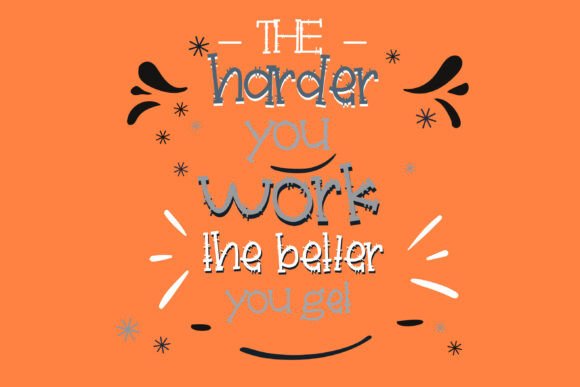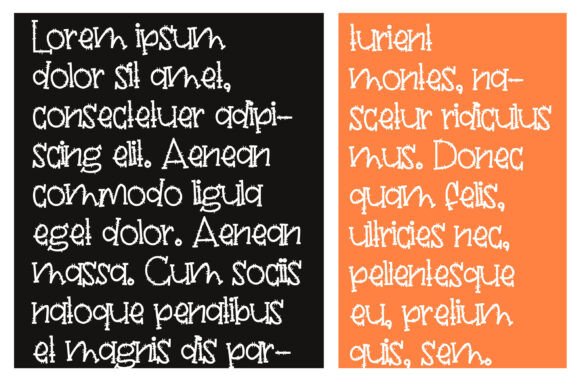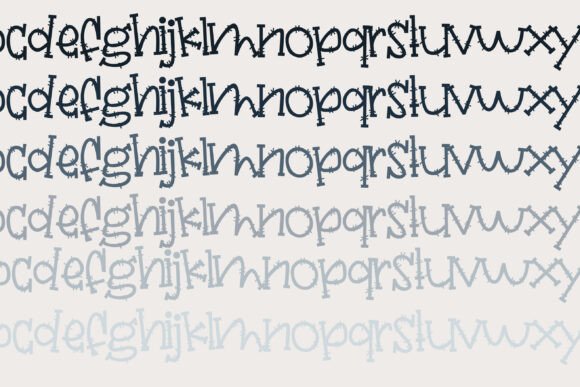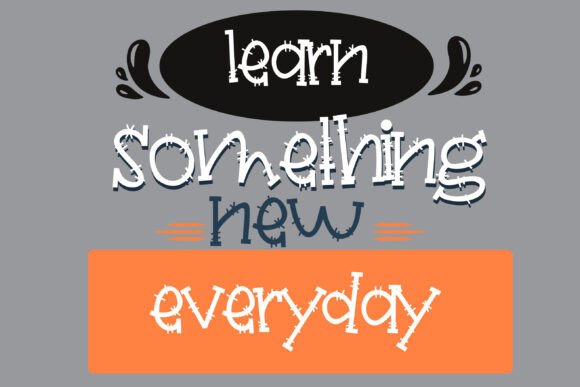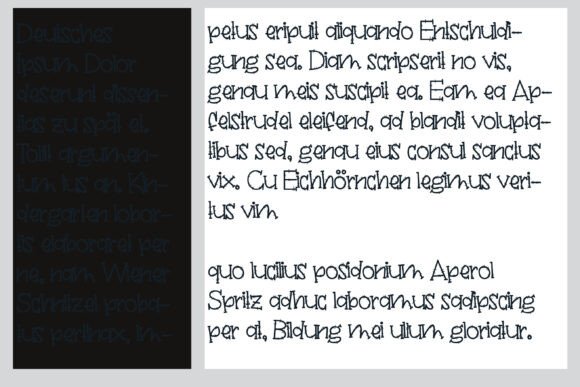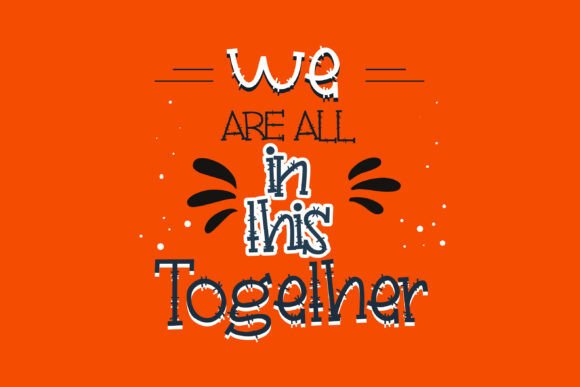
Introduction to Radical Monster Font
I still remember the moment when I stumbled upon the perfect design element for my creative project – a quirky, hand-crafted font that would elevate my invitation cards to the next level. Little did I know that I was about to fall in love with the Radical Monster Font, a high-quality, handwritten serif that screams individuality and whimsy. This unique design resource boasts monster-like hair throughout, making it a standout in any design collection.
As a designer, I can attest that having access to high-quality design elements like the Radical Monster Font is invaluable. Not only does it add a personal touch to our work, but it also sets us apart from the crowd. With its transparent background and free download availability, this font is a treasure trove for creatives seeking to add a touch of magic to their projects.
Key Features of Radical Monster Font
- Unique, hand-drawn design ideal for creative projects and eye-catching visual content
- Perfect design resource for designers, artists, and content creators seeking a bold, edgy style
Honest Review: Radical Monster Font
I recently came across the Radical Monster Font, and I must say it’s been a game-changer for my creative projects. This font is a design resource that truly delivers, offering high-quality visuals that can elevate any design to the next level.
Here are some of the things that work well for me:
- ✨ The font’s bold and edgy design makes it perfect for projects that require a bold statement.
- ⚠️ The font’s size can be overwhelming, making it difficult to read in certain contexts.
- ⚠️ The lack of customization options can be a bit restrictive for designers who prefer to tailor their fonts to specific projects.
Overall, I’m thoroughly impressed with the Radical Monster Font. Its unique design and high-quality visuals make it a valuable addition to any design arsenal. While it may have some limitations, I believe it’s well worth the investment for designers looking to take their creative projects to the next level.
Tips for Getting the Most Out of Radical Monster Font
For best results, use Radical Monster Font on a transparent background to create a clean and modern design. Experiment with different font sizes and colors to create a unique look that complements your design. You can also use Radical Monster Font in combination with other design elements to create a visually appealing design.
Radical Monster Font is perfect for creating graphics for social media, marketing campaigns, and presentations. You can also use it to create custom logos, business cards, and other design materials. With its high-quality design and free download option, Radical Monster Font is a must-have design resource for any creative project.